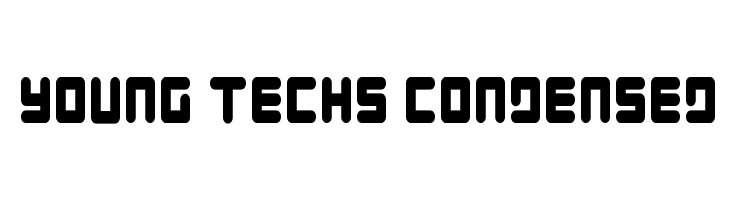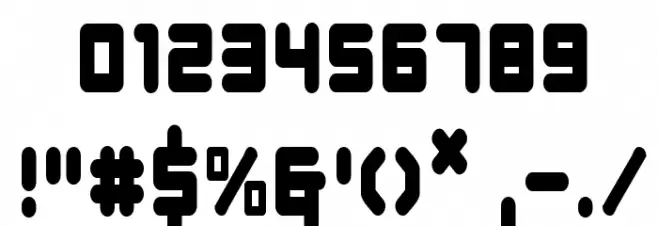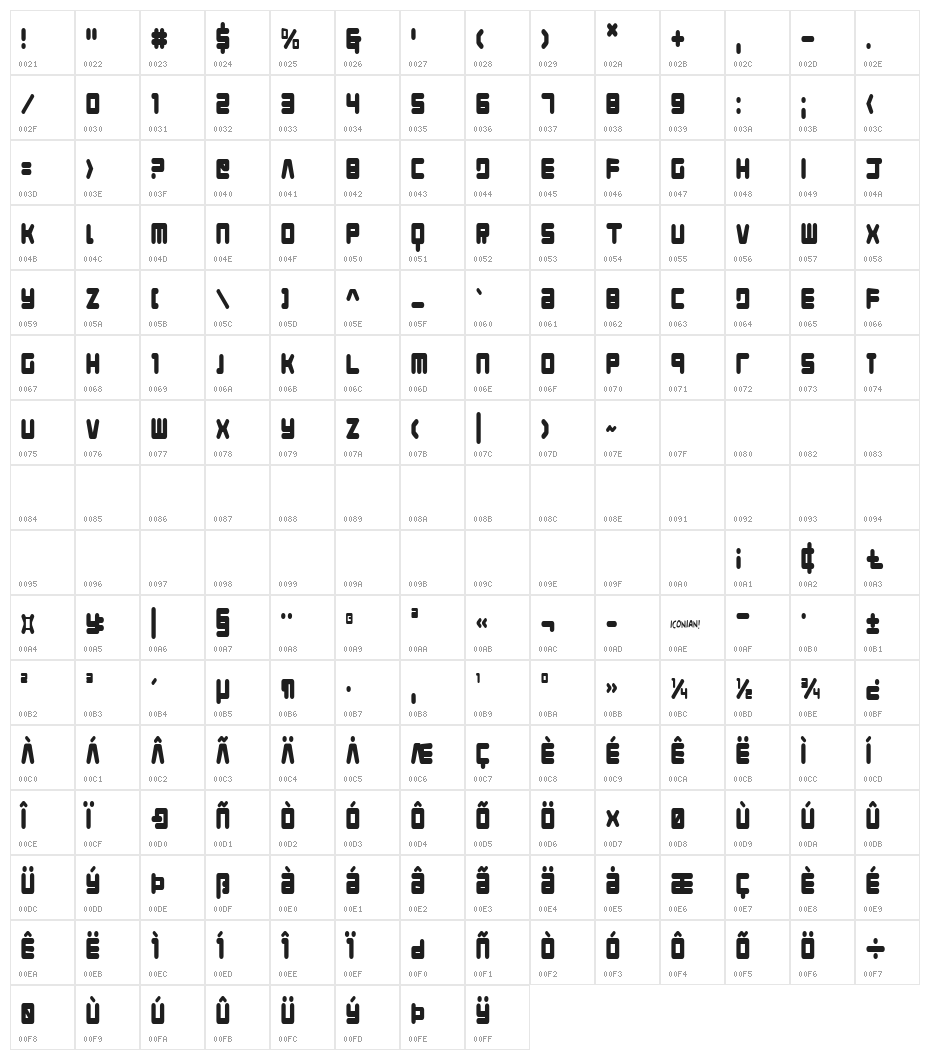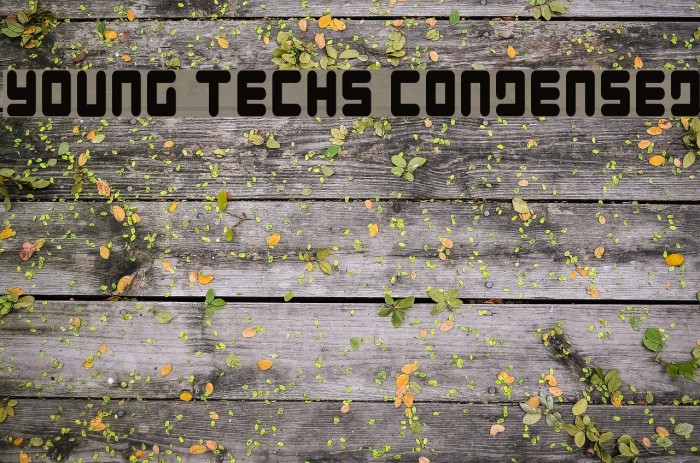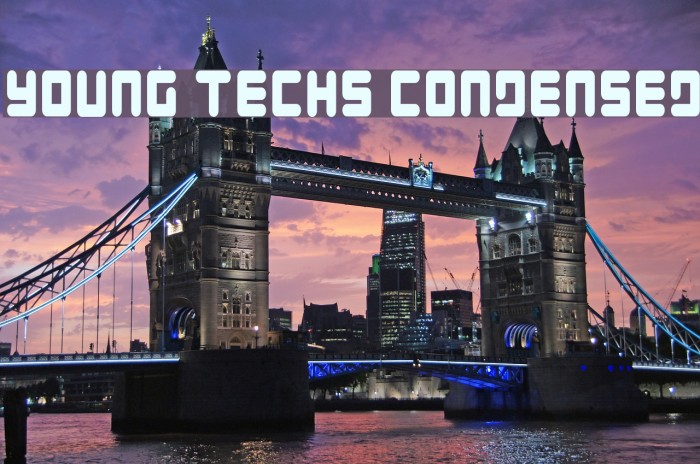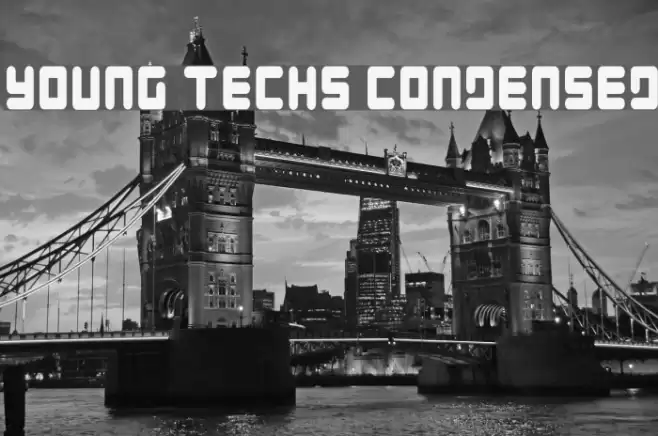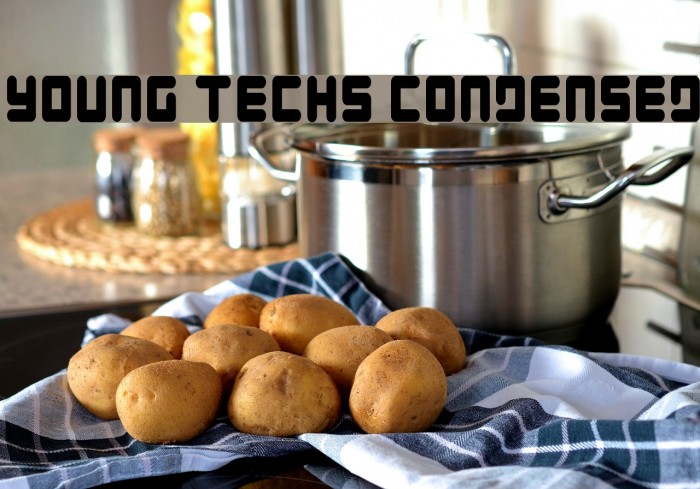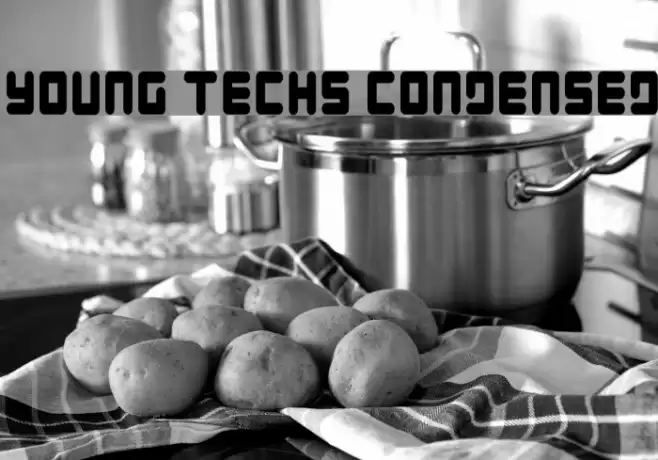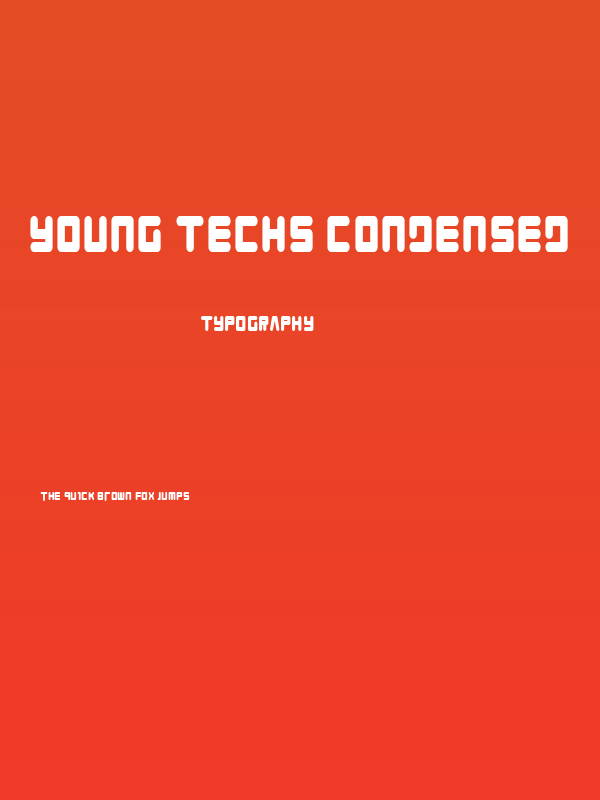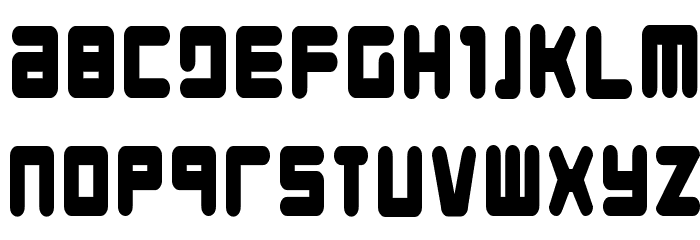
Young Techs Condensed Font
Young Techs Condensed Description
This font features a bold and futuristic design with rounded edges and a condensed structure. The characters are uniformly thick, creating a strong visual impact. The geometric shapes and smooth curves give it a modern and tech-inspired appearance. The uppercase and lowercase letters maintain a consistent style, with a slight variation in size and proportion. The numerals and special characters are designed to match the overall aesthetic, ensuring a cohesive look across all text elements. This font is ideal for projects that require a contemporary and dynamic feel.